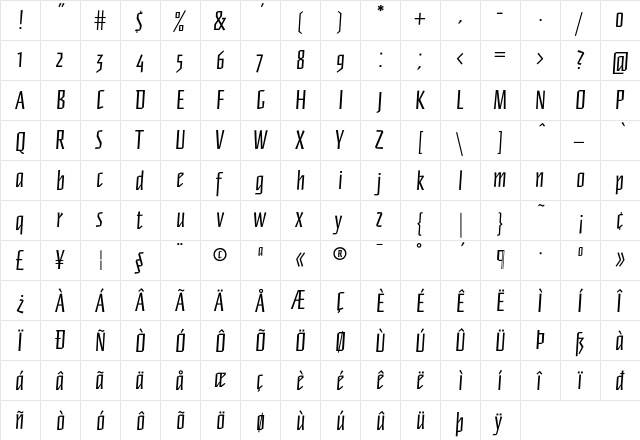
FFNewberlin Regular Font Preview
FFNewberlin Regular
Design Context for FFNewberlin Typeface
FFNewberlin is a composed and adaptable typeface that performs quietly and consistently across a wide range of design contexts.
Pro Tip: Pair FFNewberlin with a font of contrasting weight or personality to build a more expressive typographic hierarchy.